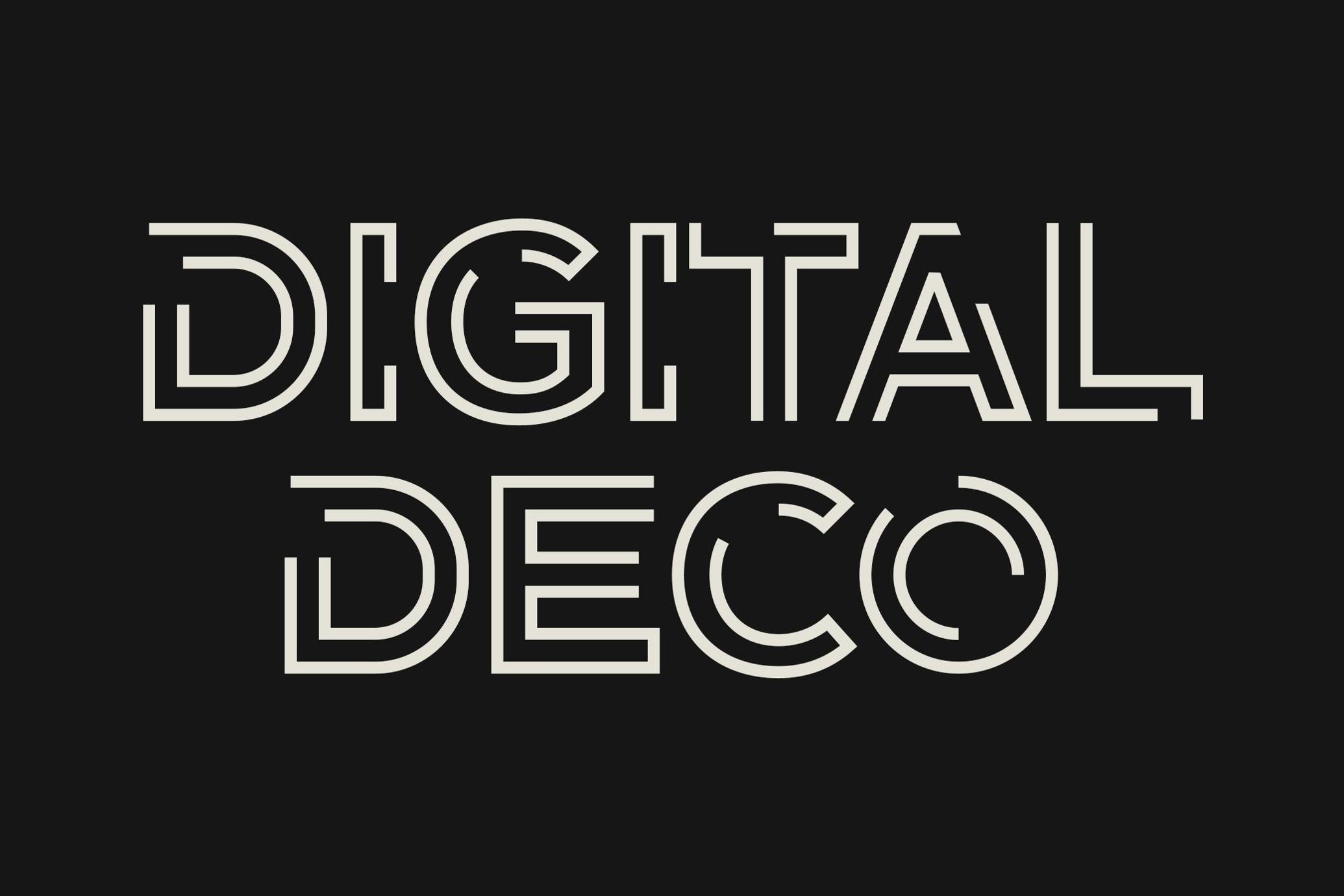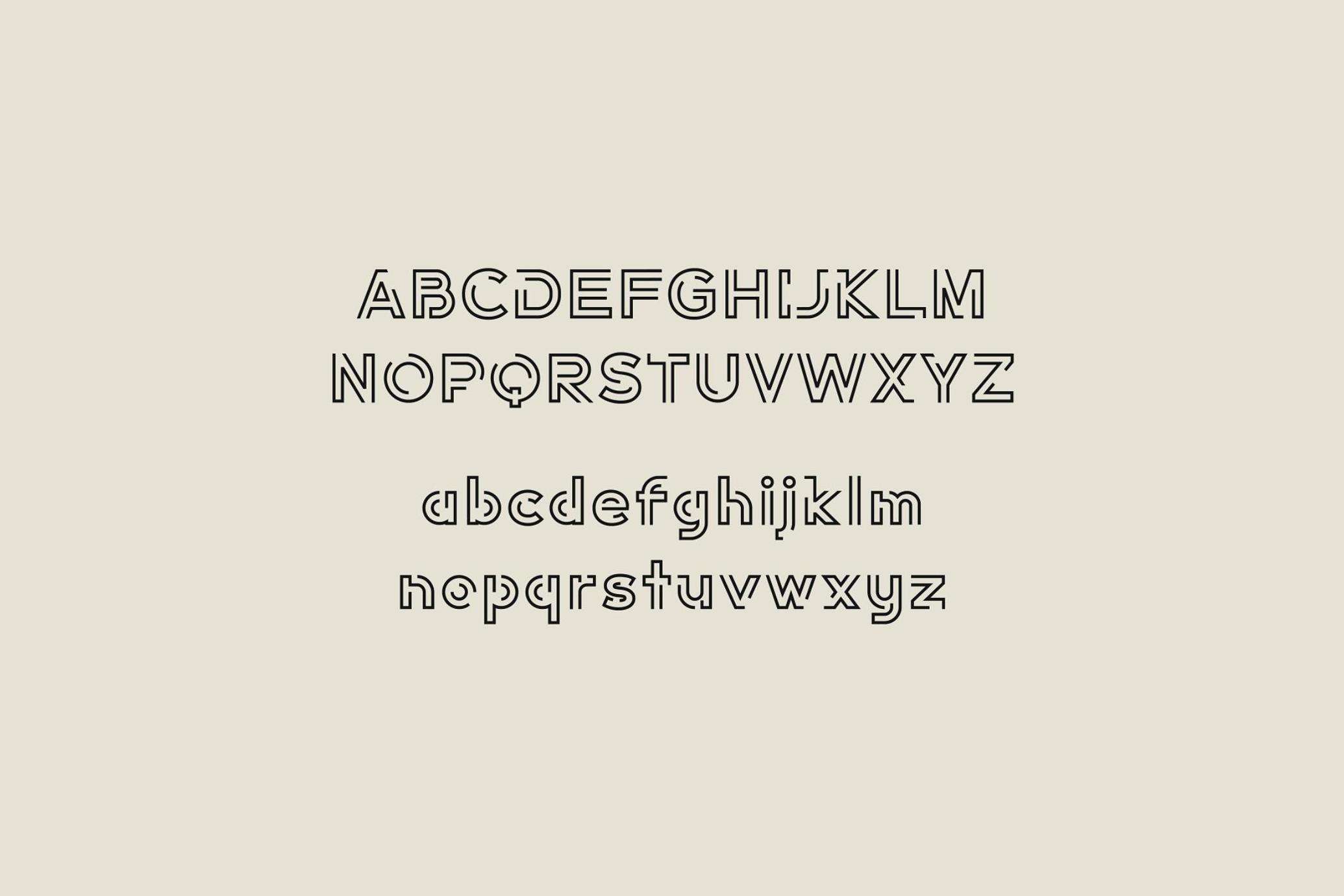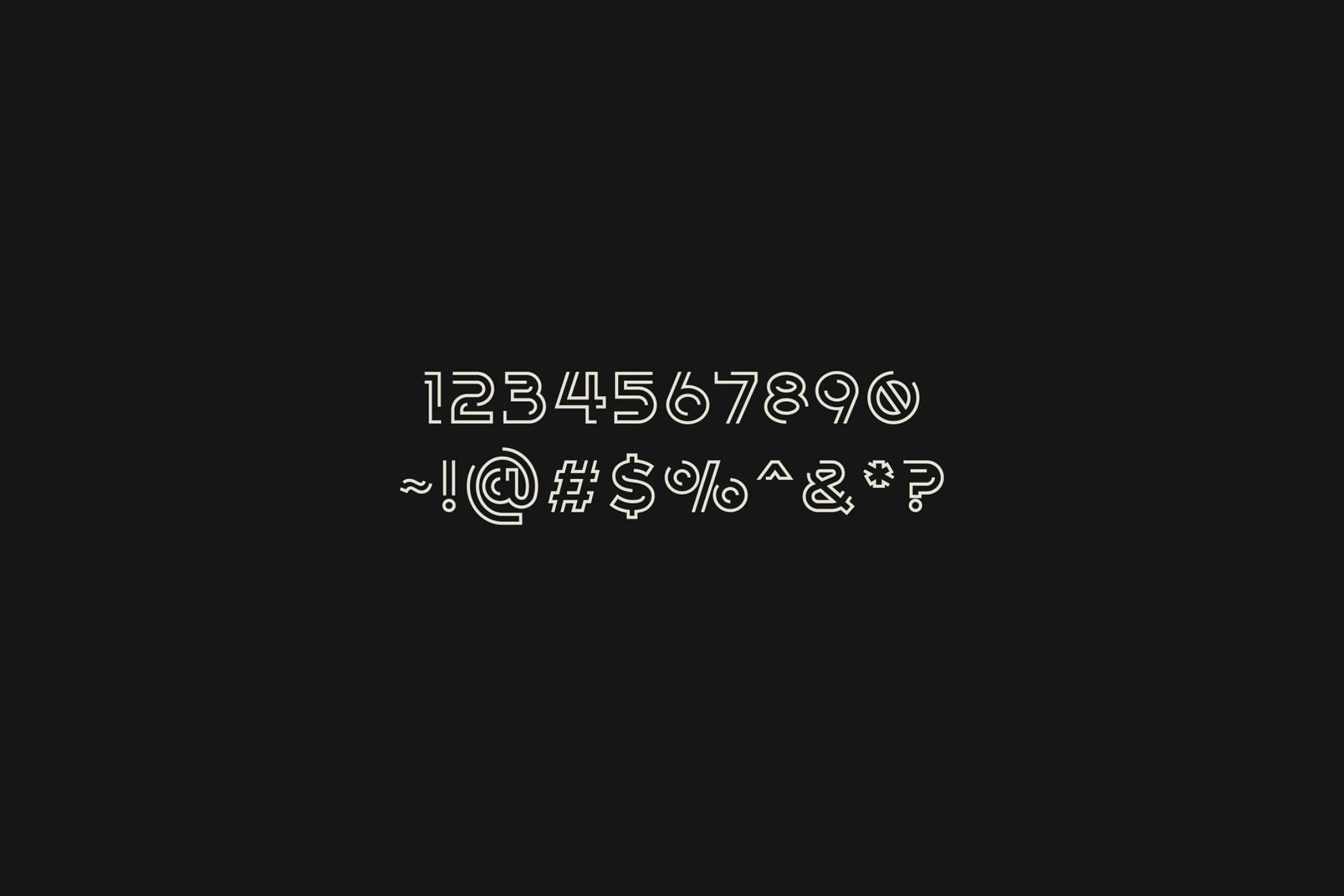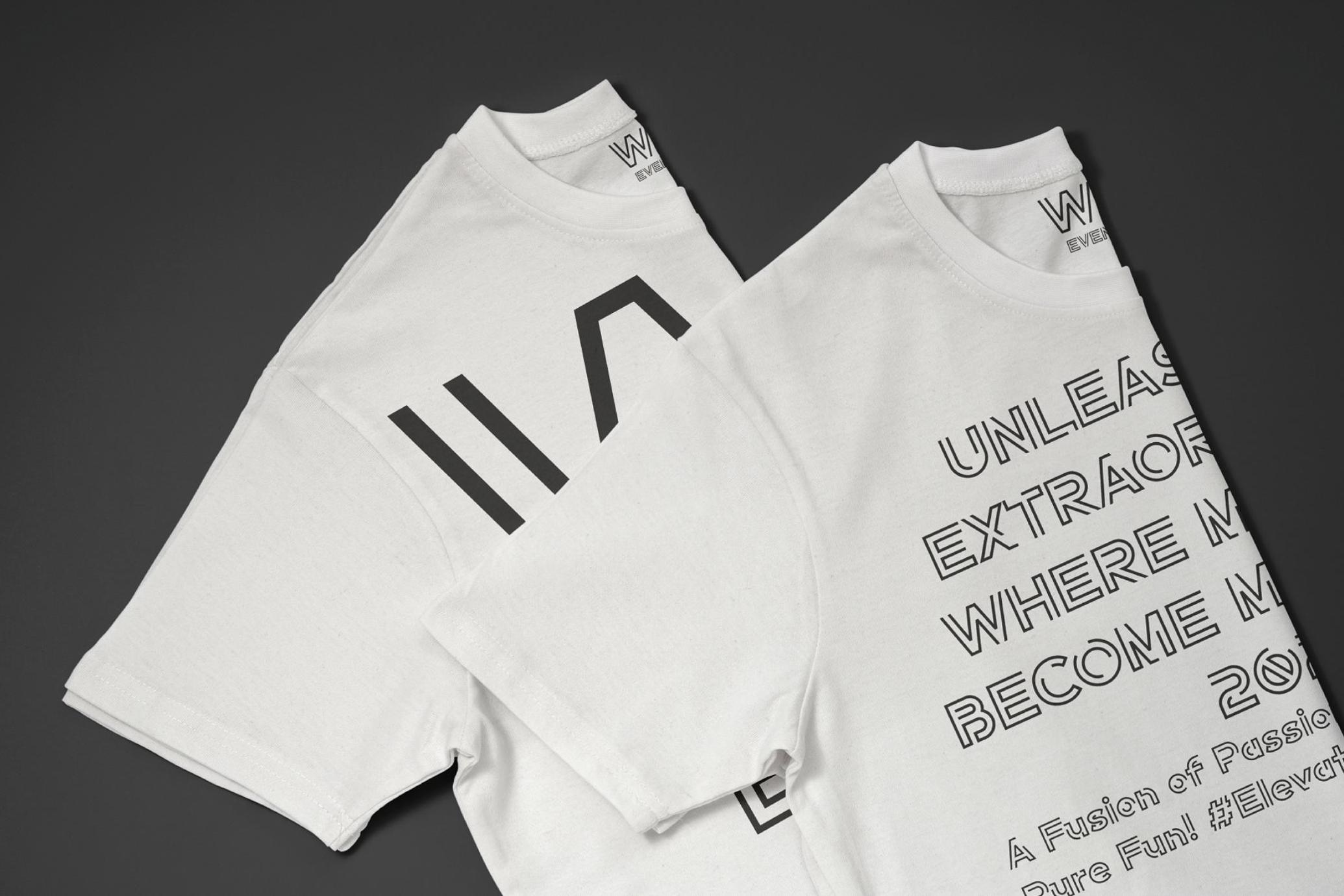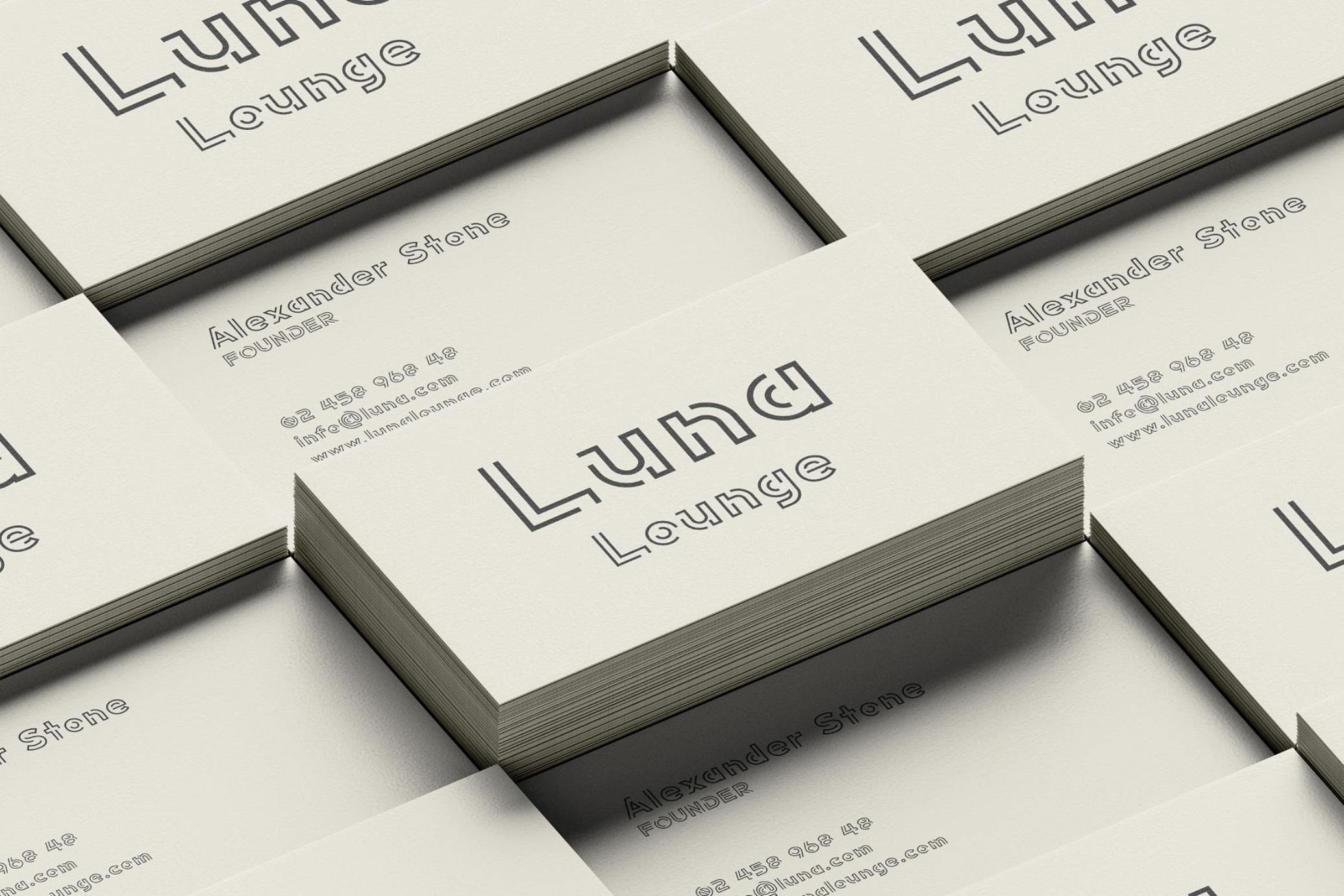
Digital Deco Typeface
Digital Deco is an innovative typeface that seamlessly blends the opulent and geometric aesthetics of the 1920s Art Deco movement with the sleek, modern sensibilities of the digital age. This typeface stands out for its masterful use of negative space, which introduces a contemporary twist to the classic, symmetrical patterns characteristic of Art Deco.
Each letter in the "Digital Deco" font is crafted with precision, featuring clean lines and sharp angles that evoke the glamorous and forward-thinking spirit of the roaring twenties, yet with a distinctly 21st-century flair.
Perfect for creating logos and branding materials, Digital Deco exudes a sense of sophistication and elegance, while its unique negative space elements add an intriguing visual complexity. This makes it particularly effective for businesses looking to combine a vintage charm with a modern, cutting-edge appearance.